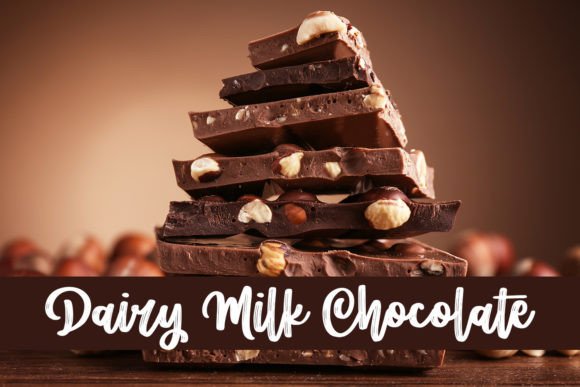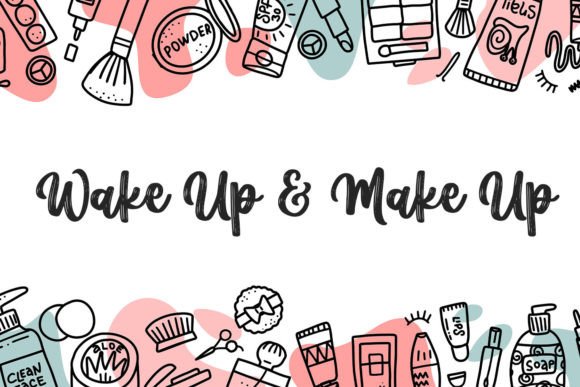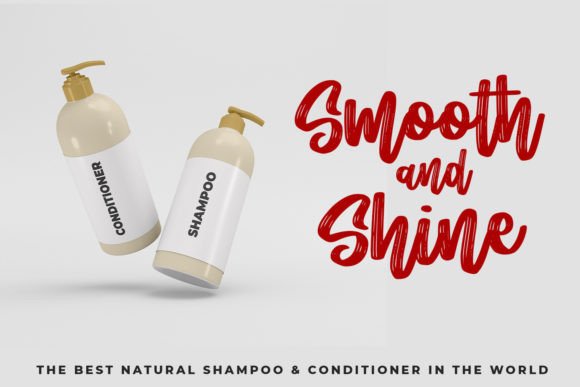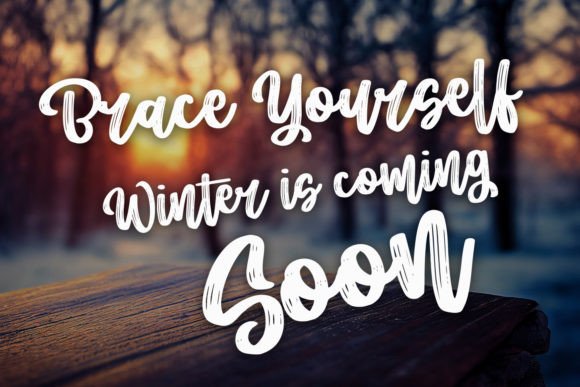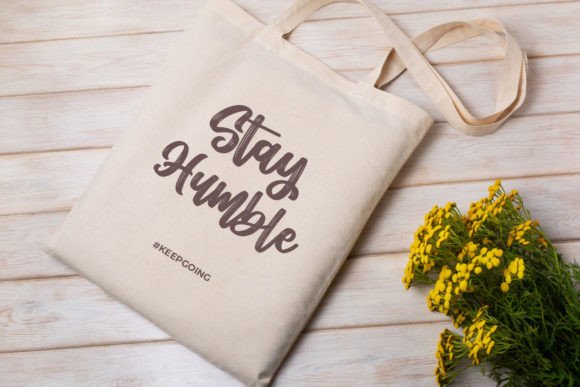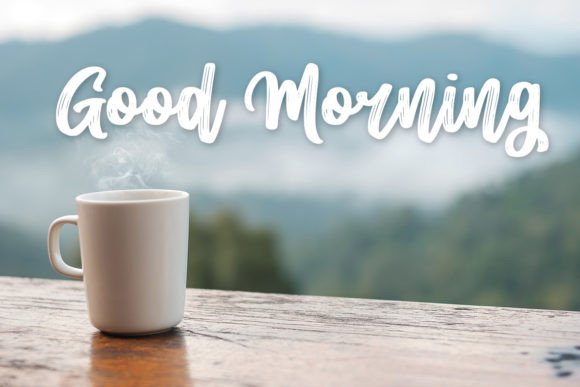
Unleash the Magic of Autumn Nights with a Handwritten Touch
There’s something special about sipping a warm cup of coffee on a crisp autumn evening, surrounded by the cozy glow of twinkling lights. The air is filled with the sweet scent of fallen leaves, and the world seems to slow down, inviting us to appreciate the little things. It’s in these moments that creativity strikes, and the need for a unique, natural touch arises.
Enter the Autumn Night Font, a beautiful, handwritten font designed to capture the essence of these enchanting autumn nights. Perfect for lettering, quotes, mugs, tote bag designs, cards, banners, social media, and any craft project that needs a natural touch, this font is a valuable addition to any designer’s toolkit.
Autumn Night Font Key Features
- Unique Characteristics: The font features a unique blend of elegant and rustic elements, creating a warm and inviting atmosphere perfect for autumn-themed designs, wedding invitations, and other seasonal projects.
- Glyphs and Characters: Autumn Night Font includes a wide range of glyphs and characters, including Latin, Cyrillic, and Greek alphabets, as well as various punctuation marks and symbols.
Autumn Night Font Review
Overall, I was pretty impressed with the Autumn Night Font. ✨ Here are some of its standout features:
- Unique aesthetic: The font has a distinct, mystical feel that would be perfect for creating a cozy atmosphere.
- Readability: The font is easy to read, even at smaller font sizes.
- Wide character set: It includes a wide range of characters, including punctuation and special symbols.
- Limited font sizes: While the font is readable at smaller sizes, it may not be the best choice for very large font sizes.
- Lack of bold and italic styles: The font only comes in a regular style, which may limit its versatility.
Overall, I’d say that Autumn Night Font is a great choice for designers who want to add a touch of mysticism to their projects. While it has some limitations, its unique aesthetic and readability make it a solid choice for a wide range of applications.
Some popular use cases for Autumn Night Font include:
– Creating cozy and inviting designs for autumn-themed events or products.
– Adding a touch of elegance to wedding invitations or stationery.
– Using as a title font for design projects that require a sophisticated and rustic feel.
Alternatives to Autumn Night Font
Oswald is a sans-serif font known for its clean and modern aesthetic. It is ideal for use in titles, headings, and body text where a clear and readable font is required. Oswald is more versatile than Autumn Night Font, making it suitable for a wide range of design projects.
Lato is a sans-serif font with a friendly and approachable feel. It is suitable for use in body text, headings, and titles where a warm and inviting tone is desired. Lato is more legible than Autumn Night Font, making it easier to read, especially in digital formats.